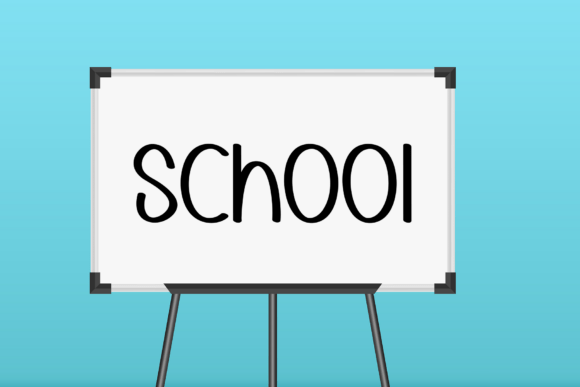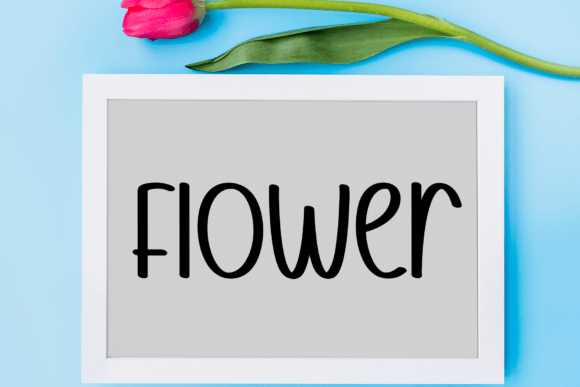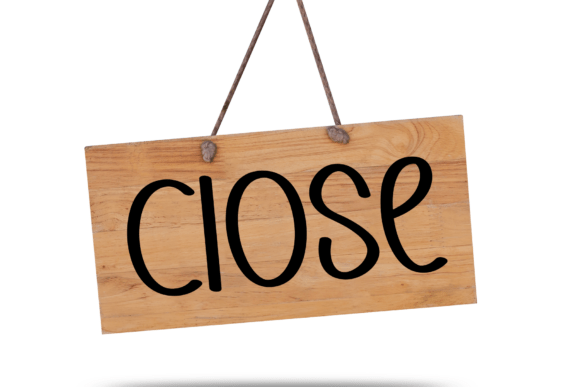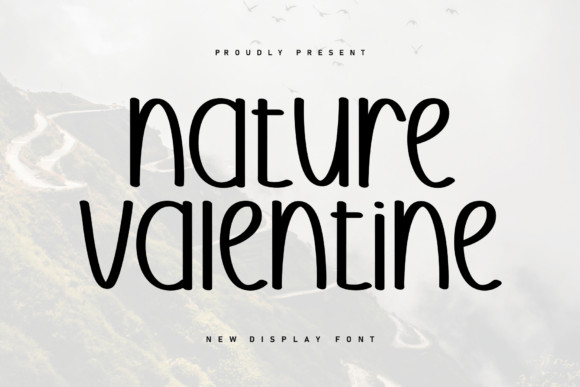
Introduction to Nature Valentine Font
Nature Valentine is a sweet and beautiful handwritten font.
Featuring characters that dance along the baseline, this font will add a cozy accent to any design project you wish to create .